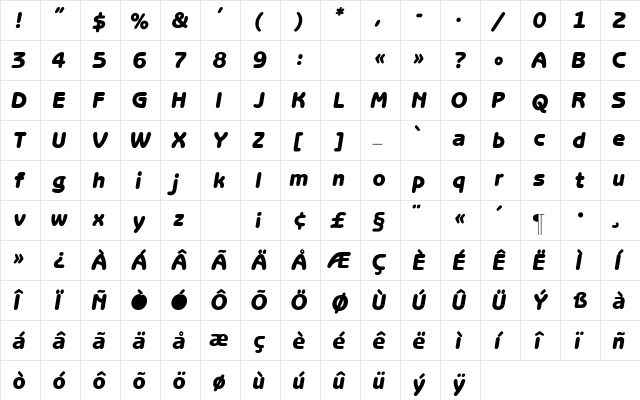
Benguiat_Gothic-BlackItalic Regular
Design Context for Benguiat_Gothic-BlackItalic Typeface
Benguiat_Gothic-BlackItalic has the quiet confidence of well-executed sans-serif typography: versatile, unobtrusive, and dependable at any size. Its italic angle brings a sense of urgency and motion to the letterforms.
Font Pairing: Works well alongside a characterful serif or display font that can carry the expressive load while Benguiat_Gothic-BlackItalic handles the functional copy.
Pro Tip: Pair Benguiat_Gothic-BlackItalic with a display or serif font for headlines — its neutral character makes it an excellent supporting player in complex typographic systems.